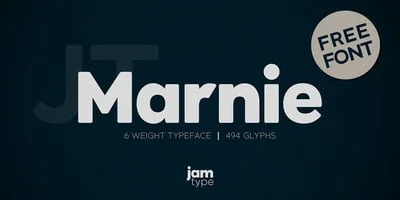
JT Marnie Font
JT Marnie Font is ideal for vintage boutique branding, retro fashion campaigns, nostalgic lifestyle marketing, classic diner signage, vintage photography studios, antique shop communications, retro beauty salon advertising, old-school record store graphics, vintage-inspired wedding invitations, and timeless elegance promotions.
What makes JT Marnie Font exciting is its timeless vintage charm that perfectly captures the classic elegance and nostalgic sophistication found in mid-century design and retro glamour aesthetics. This typeface features graceful letterforms with vintage proportions and classic details that evoke the refined beauty of bygone eras and the enduring appeal of timeless style. The font's nostalgic personality and vintage authenticity make it ideal for retro brands seeking to convey classic elegance, timeless beauty, and the sophisticated charm that comes from vintage fashion and classic design traditions.
JT Marnie Font family includes classic weight variations and vintage-inspired alternatives that enhance its retro appeal while providing design flexibility for vintage and classic applications. The font features timeless ligatures, retro-themed ornaments, and classic character variations that create authentic vintage atmosphere for retro and classic elegance branding.
Vintage lifestyle brands and classic fashion companies consistently select JT Marnie Font for projects requiring authentic vintage appeal and classic credibility. The font's timeless character excels in applications targeting vintage enthusiasts, classic style appreciators, and nostalgic consumers who value genuine retro elegance and timeless sophistication. Whether you're designing for vintage fashion, classic beauty brands, or retro lifestyle products, this charming typeface delivers the vintage authenticity and classic elegance that resonates with audiences seeking genuine retro style and the timeless beauty that defines classic vintage fashion and enduring design sophistication.